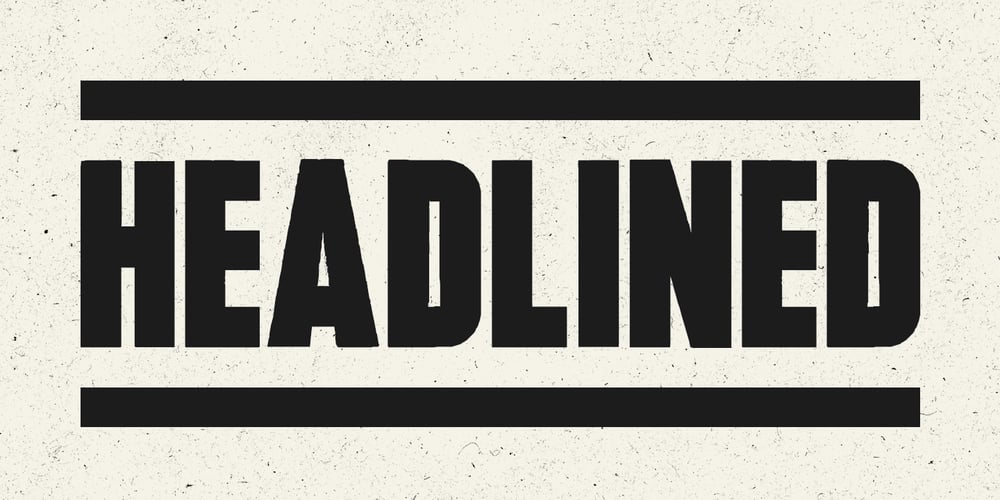
Headlined Solid
Headlined Solid font
Headlined Solid Font Family was designed by Alex Haigh and published by HyperFluro. Headlined Solid contains 1 styles and family package options. Where Headlined creates bold statements, Headlined Solid states facts. Simple, sans serif and steady as a rock, Headlined Solid does what needs to be done, no more and no less. For pragmatism and clarity of form this font couldn’t be better. Alternatively if you’re looking for something a little more filthy, check out the original Headlined.